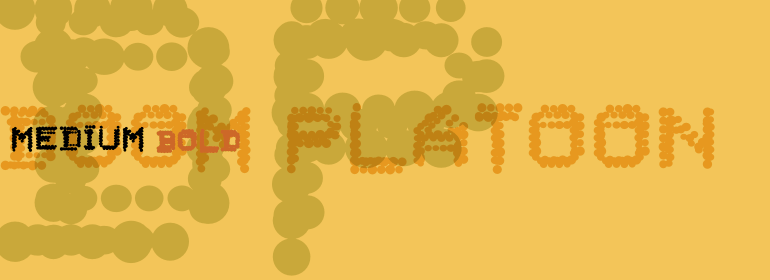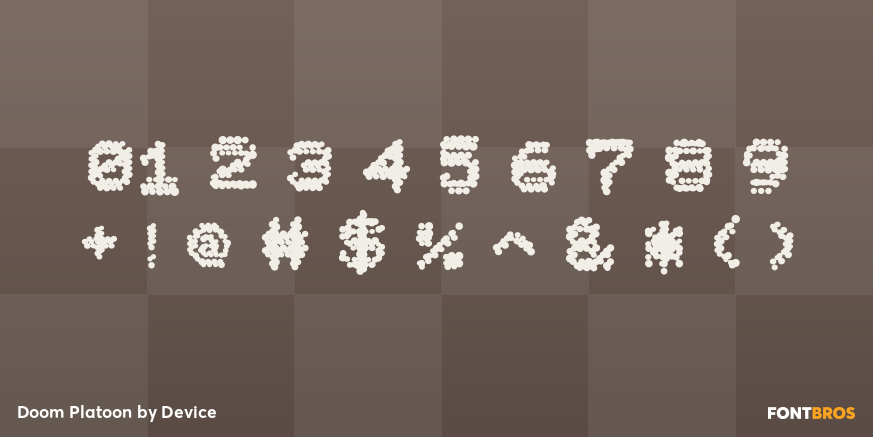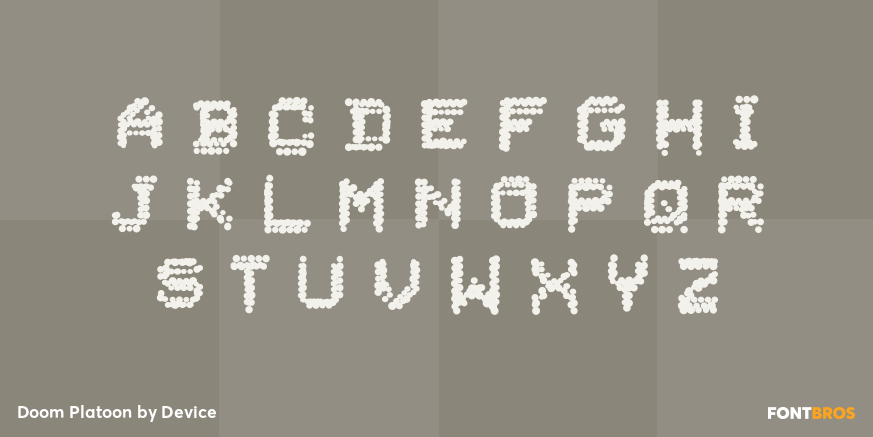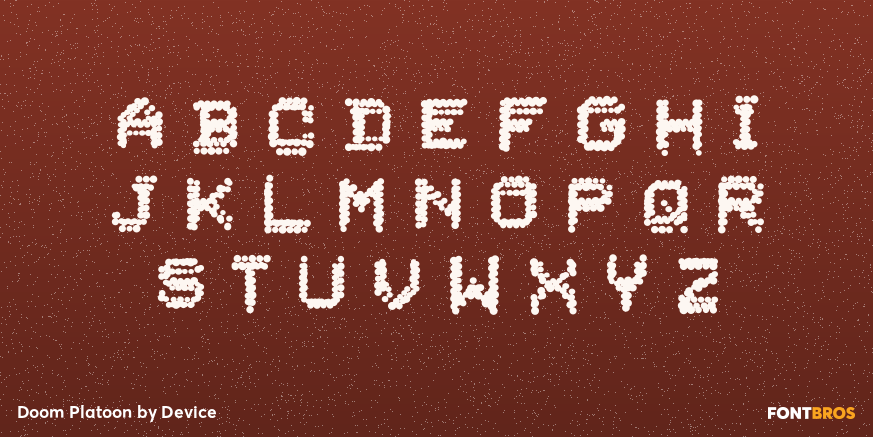
Doom Platoon
Doom Platoon is a two-style display family from Device with a forceful, hard-edged presence. Offered in Medium and Bold, it projects a loud, graphic attitude that feels built for attention-grabbing typography rather than quiet body text.
That makes it a strong fit for posters, branding, packaging, apparel graphics, game-inspired visuals, and other display work where you want the lettering to carry weight and personality. With just two focused styles, it gives you a compact, easy-to-use set for bold headlines and standout graphic statements.